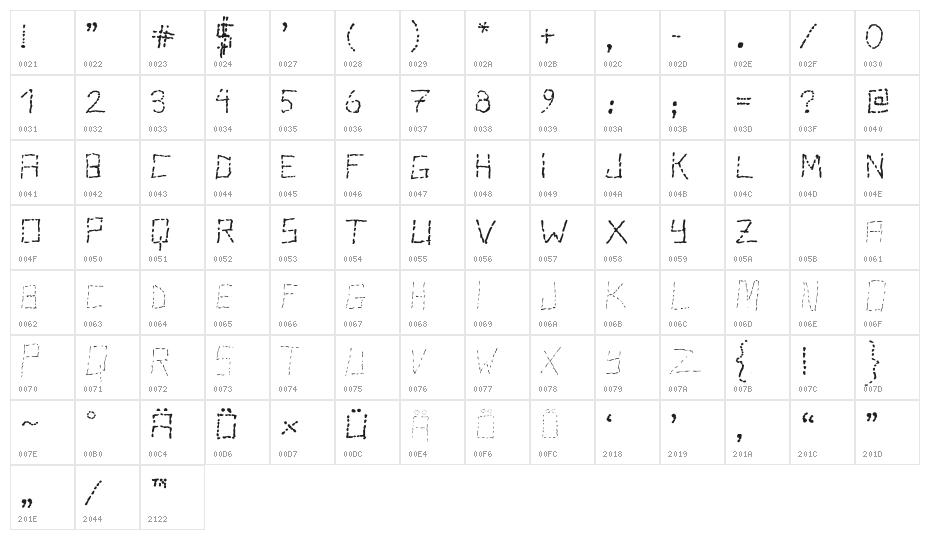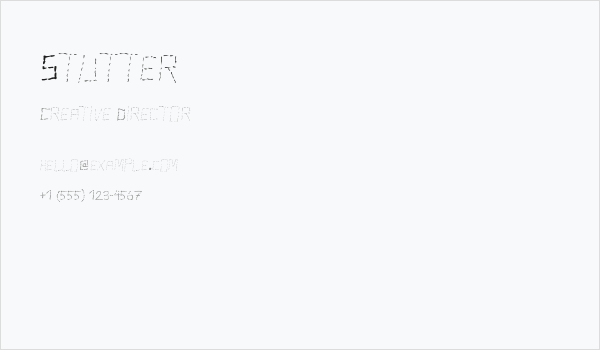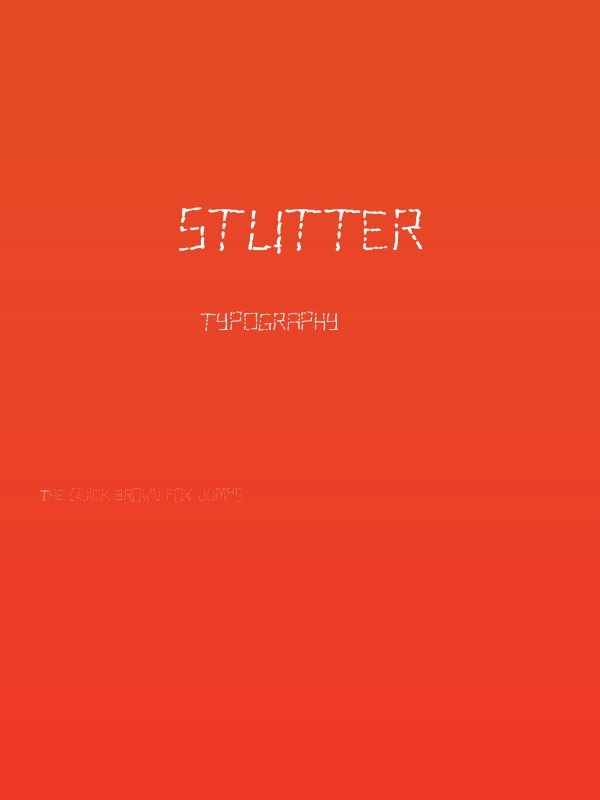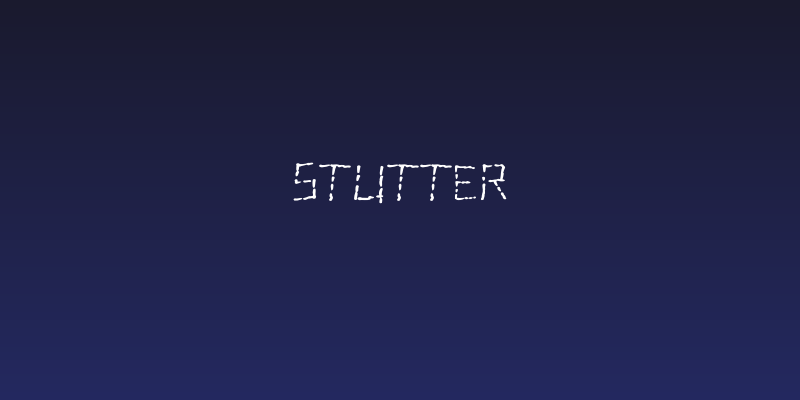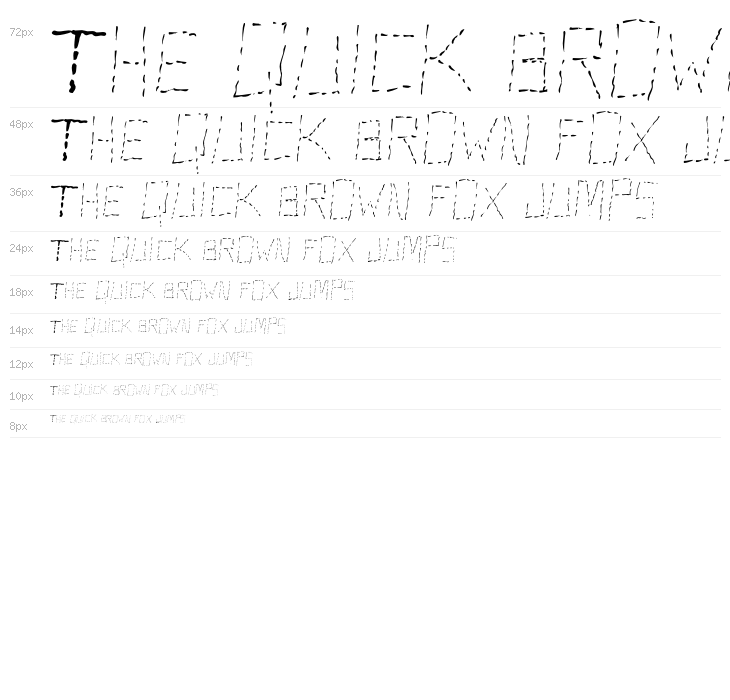
Stutter Font
Stutter Description
This font features a unique, dotted style that mimics the appearance of a stenciled or stitched design. Each character is composed of individual segments, giving it a fragmented and playful look. The uppercase and lowercase letters maintain a consistent style, with rounded edges and a slightly irregular pattern that adds to its charm. Numbers and special characters follow the same design principles, ensuring a cohesive appearance across all glyphs. This font's distinctive style makes it stand out, offering a creative and artistic flair suitable for various design projects.
| Overall Style | Playful, Artistic |
| Use Case | Logos, Headlines, Creative projects |
| Proposed Projects | Ideal for creative projects such as children's books, playful branding, arts and crafts materials, or any design that requires a whimsical touch. |